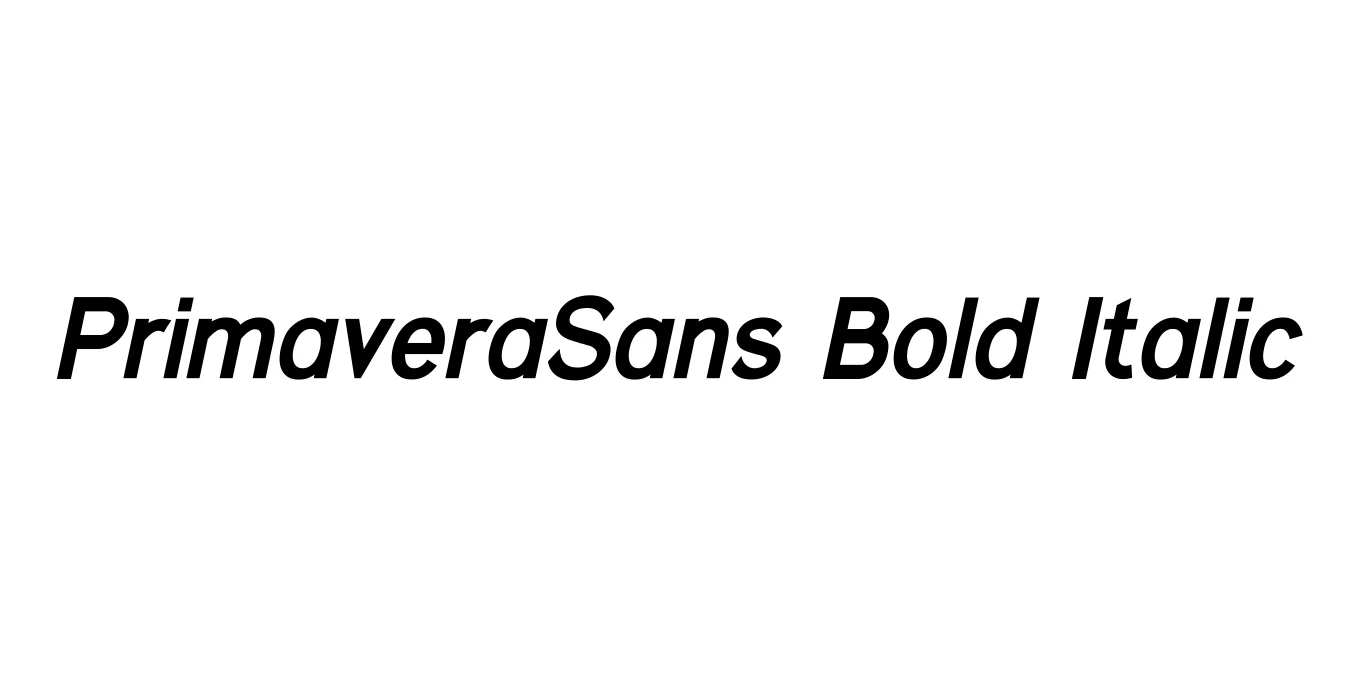
PrimaveraSans Bold Italic
Designed by Primafont Design Team
PrimaveraSans Bold Italic is a sophisticated sans-serif typeface that bridges the gap between classic humanist structures and modern geometric precision. The Bold Italic weight is particularly striking, offering a slanted, high-impact aesthetic that maintains exceptional legibility even at smaller sizes. Its design features subtle stroke variations and open counters, which provide a sense of breathability and elegance within its heavy, slanted frame.
Historically, the PrimaveraSans family was developed to cater to the needs of professional graphic designers seeking a versatile workhorse font for high-stakes visual communication. It has seen extensive use in corporate reporting, signage systems, and high-end editorial layouts. The Bold Italic variant is frequently employed to emphasize key messaging or to create a sense of forward motion in both digital interfaces and traditional print advertisements.
PrimaveraSans Bold Italic Best Uses
Establishing a strong and reliable brand voice through logos and business stationery.
Adding emphasis and dynamic style to magazine or newspaper titles.
Creating high-impact call-to-action buttons and striking website banners.
Delivering urgent marketing messages with clarity and professional flair.